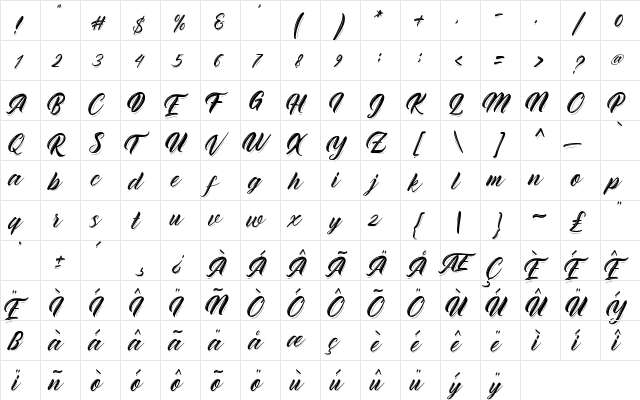
Rhinatta Script Regular
Design Context for Rhinatta Script Typeface
Rhinatta Script flows with the natural rhythm of handwritten lettering, making it ideal for designs that call for warmth and personal expression.
Font Pairing: Combine Rhinatta Script with a simple geometric sans for maximum contrast — the tension between flowing curves and clean structure is a classic typographic pairing.
Pro Tip: Pair Rhinatta Script with a clean sans-serif for supporting text. The contrast between fluid script and geometric structure creates an elegant typographic hierarchy.